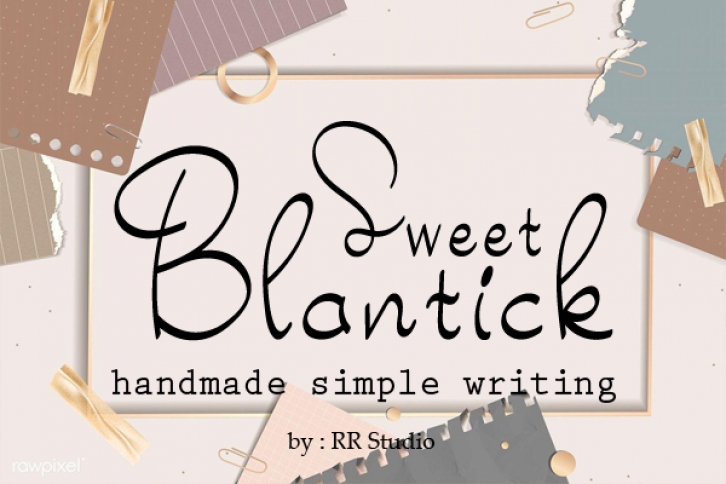
Sweet Blantick is a stylish and elegant handwritten font. It looks lovely on wedding invitations, thank you cards, quotes, greeting cards, logos, business cards and every other design which needs a customized touch.